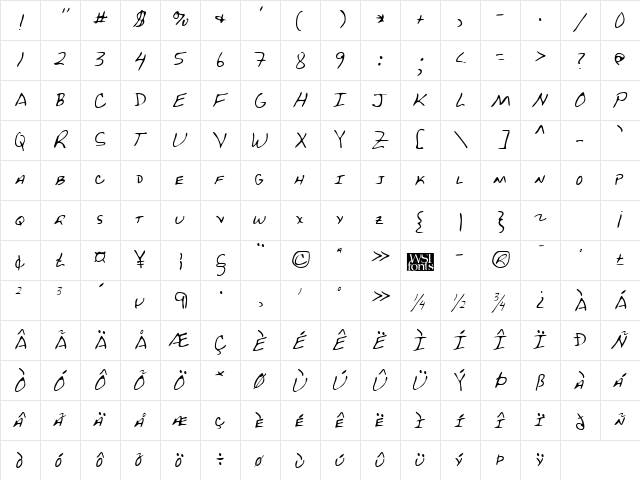
PetersHand Regular Font Preview
PetersHand Regular
PetersHand Regular Font Details
Design Context for PetersHand Typeface
PetersHand brings a calligraphic fluidity to the page — its connecting strokes and expressive curves give it an unmistakably human quality.